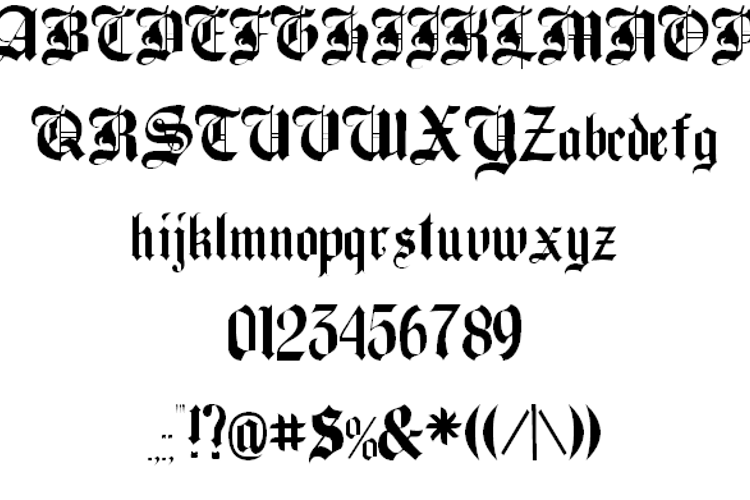
Beckett Font
Hand designed based off an old english font with some minor adjustments and based off a variation of my own name.
Look at Beckett Kanzlei for an improved version by Dieter Steffmann